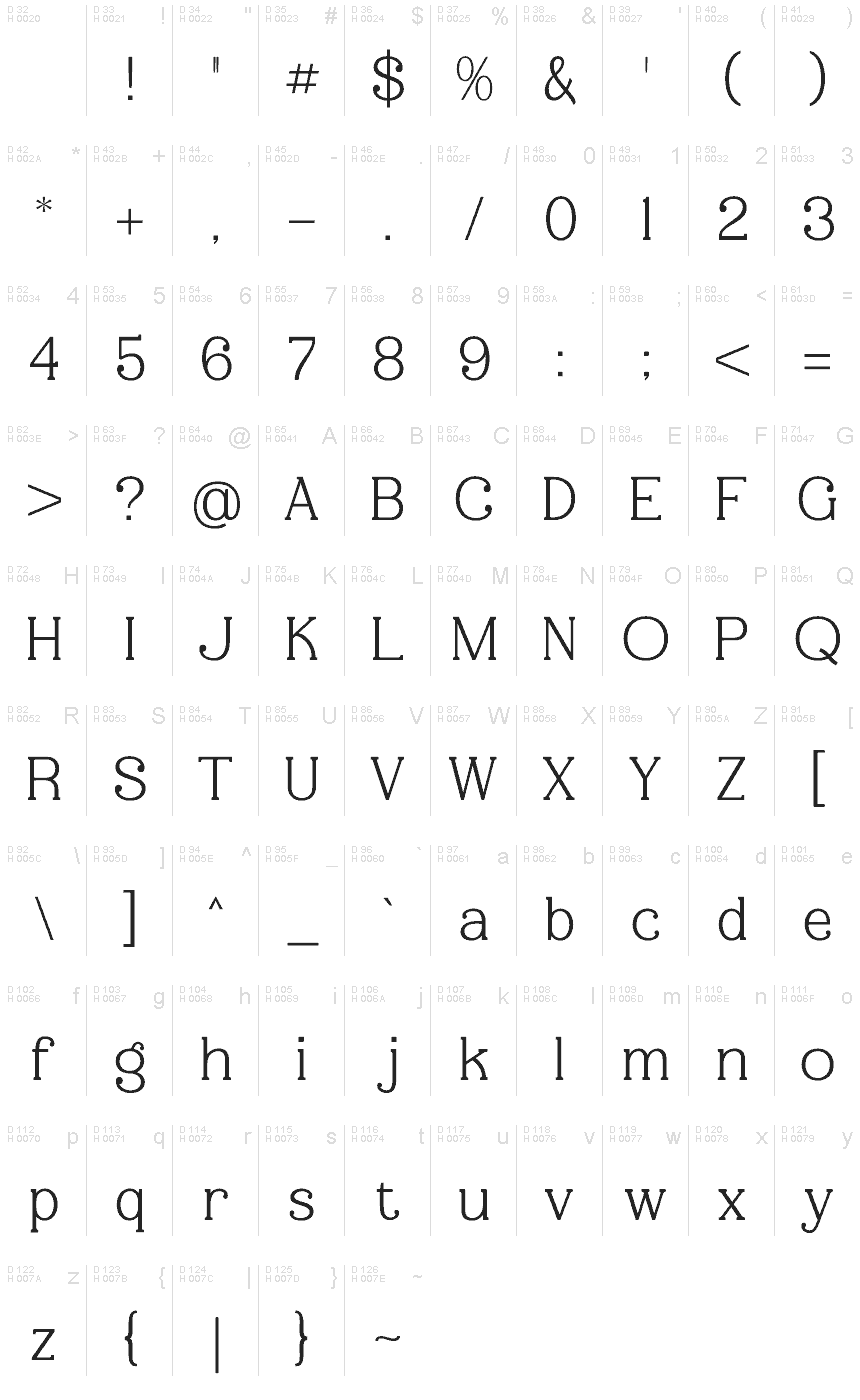
Silvera Peach
Silvera Peach font by Storytype Studio is a classic elegant serif typeface with its timeless appeal achieved through intense visual care. The font is infused with a sophisticated mood making it the ideal choice for anyone who appreciates the classics and enjoys them in modern contexts. From the first glance, this strong serif influence communicates prestige which would be great to take advantage of.
Design books, magazines, invitations, videos with Silvera Peach to give them all a big upgrade. The font will shine on product packaging or display posters as well. Other use cases are logos for brands and businesses related to arts, culture, architecture, and nature among others.